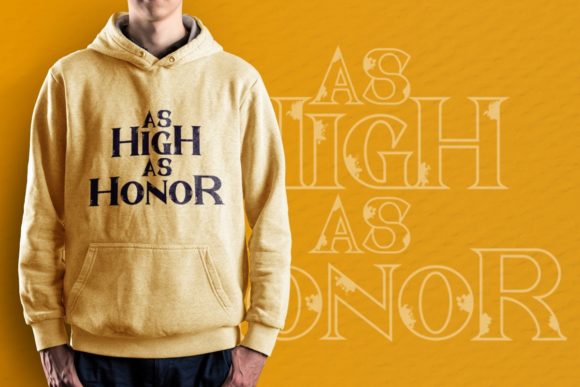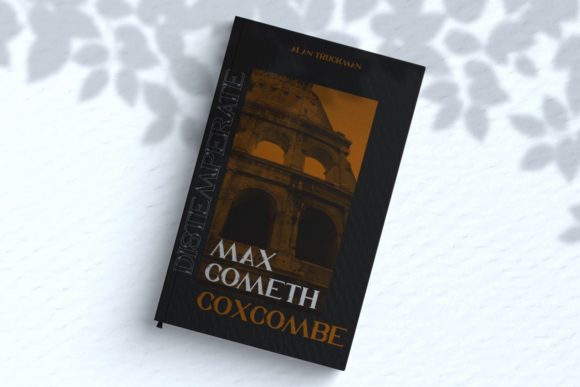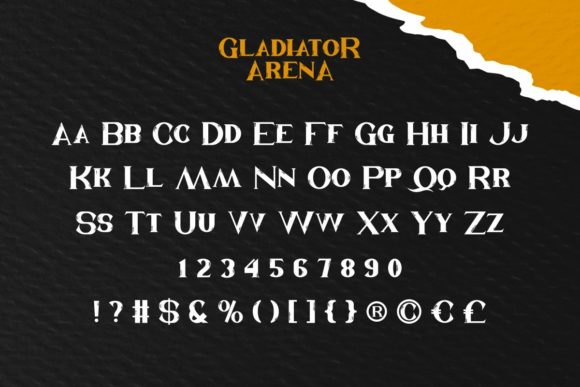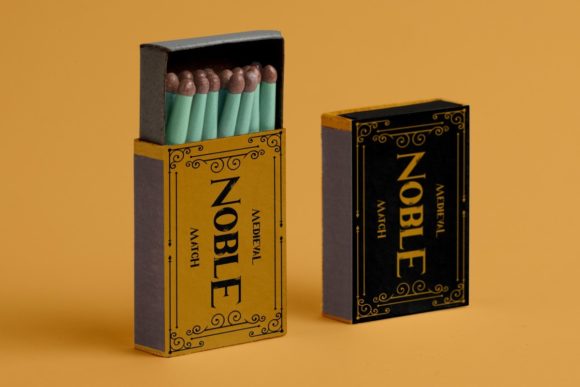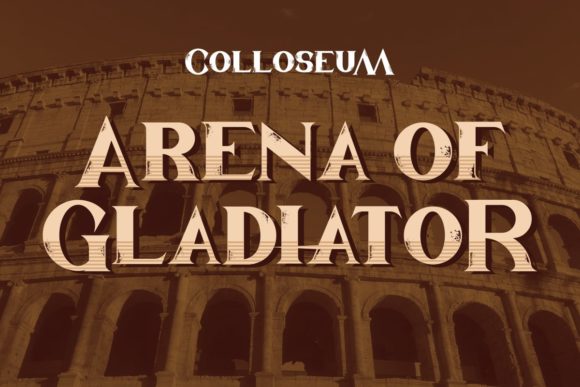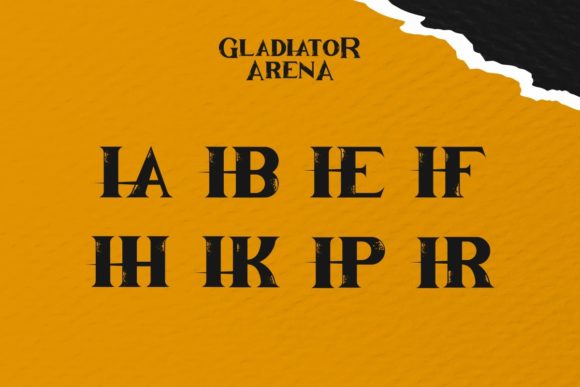
Unleash the Power of Gladiator Arena Font: A Bold and Edgy Serif Font
Are you tired of using the same old fonts for your designs? Look no further! Introducing Gladiator Arena Font, a cool serif font with textured effects that’s inspired by the ancient Roman fighting: gladiator. This bold and sharp-edged font is perfect for titles on books and other written works, markings on tourist attractions, and those requiring a different serif style.
The Inspiration Behind Gladiator Arena Font
Gladiator Arena Font is inspired by the fierce and intense battles of ancient Roman gladiators. The font’s design is reminiscent of the rugged and worn stone carvings found in ancient Roman arenas. The textured effects and bold lines evoke a sense of strength and power, making it perfect for designs that require a strong and edgy look.
Key Features of Gladiator Arena Font
• Bold and Sharp Edges: Gladiator Arena Font features bold and sharp edges that give it a unique and edgy look.
• Textured Effects: The font includes textured effects that add a layer of depth and dimensionality to your designs.
• Serif Style: Gladiator Arena Font is a serif font, making it perfect for titles, headings, and other written works.
• Ancient Roman Inspiration: The font’s design is inspired by ancient Roman architecture and gladiatorial combat, giving it a unique and distinctive look.
Uses for Gladiator Arena Font
Gladiator Arena Font is a versatile font that can be used in a variety of design projects, including:
• Book Titles: Use Gladiator Arena Font to create bold and eye-catching titles for your books and other written works.
• Tourist Attractions: The font’s ancient Roman inspiration makes it perfect for markings and signage at tourist attractions.
• Posters and Flyers: Add a touch of edginess to your posters and flyers with Gladiator Arena Font.
• Logos and Branding: Use Gladiator Arena Font to create a bold and memorable logo for your brand.
Tips for Using Gladiator Arena Font
Here are some tips for getting the most out of Gladiator Arena Font:
• Use it sparingly: Gladiator Arena Font is a bold font, so use it sparingly to avoid overwhelming your design.
• Pair it with a simple font: Pair Gladiator Arena Font with a simple font to create contrast and visual interest.
• Experiment with colors: Try out different colors and textures to add depth and dimensionality to your design.
Gladiator Arena Font is a unique and versatile font that’s perfect for designers and crafters looking to add a touch of edginess to their designs. With its bold and sharp edges, textured effects, and ancient Roman inspiration, this font is sure to make a statement. So why wait? Download Gladiator Arena Font today and unleash the power of the gladiator on your designs!